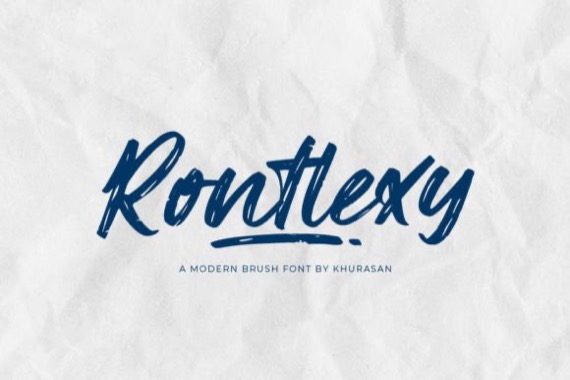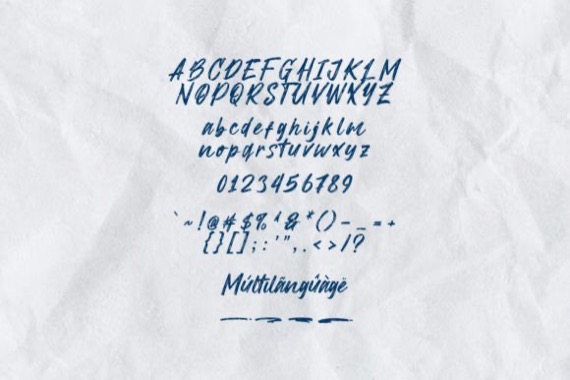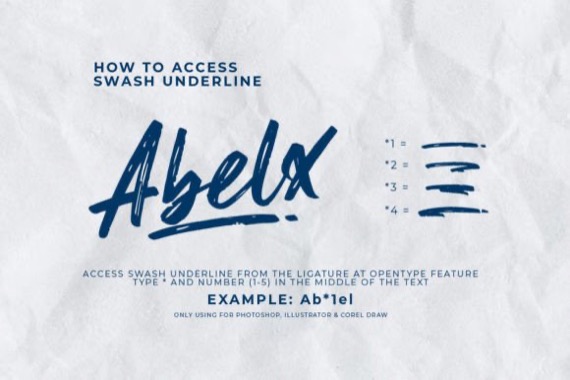
Rontlexy is a modern hand-brush script font that was created and shared by Khurasan, it’s perfect for posters, logos, magazines, book covers, banners, and many more! Get this amazing font, and use it to create lovely designs. It can easily be matched to an incredibly large set of projects, so add it to your creative ideas and notice how it makes them stand out!
Rontlexy Brush Handwritten Font